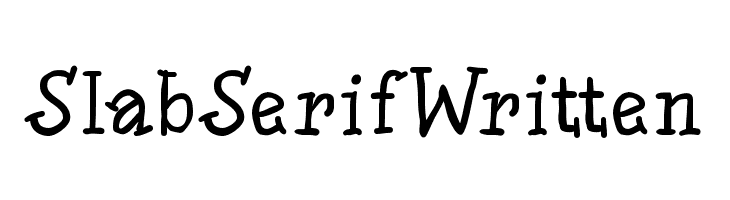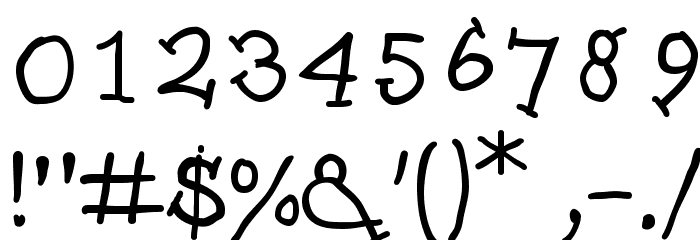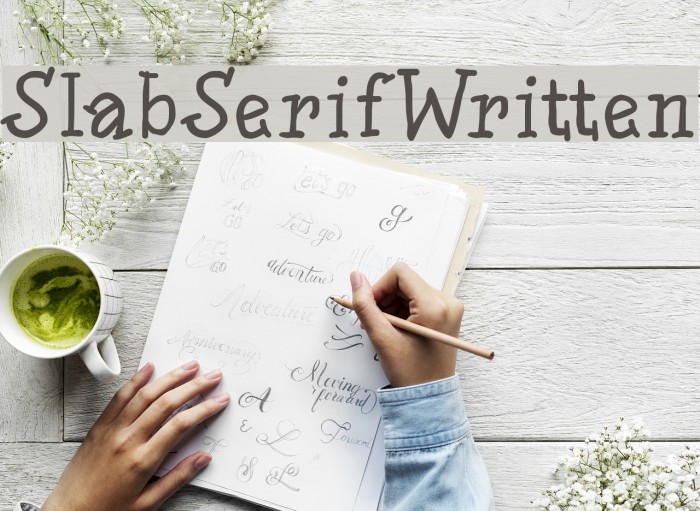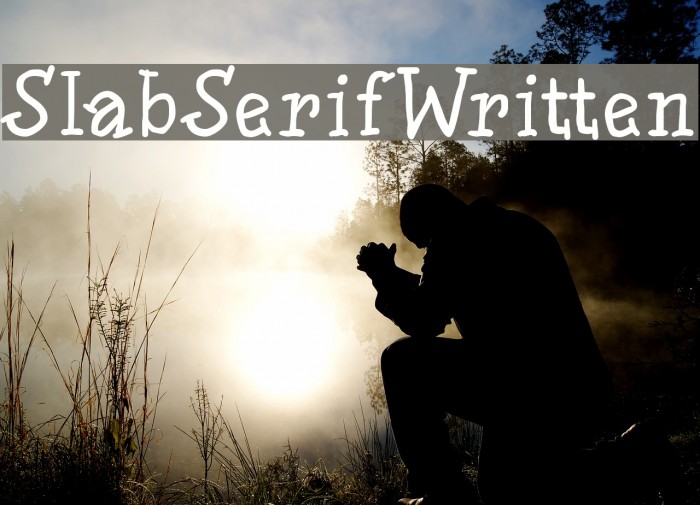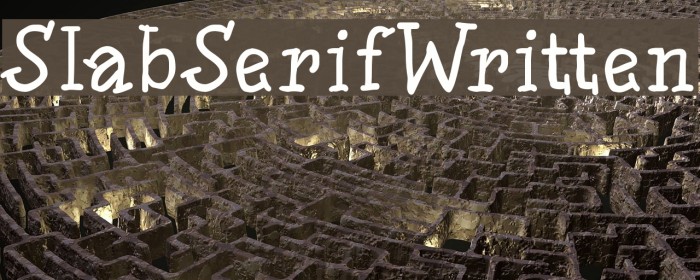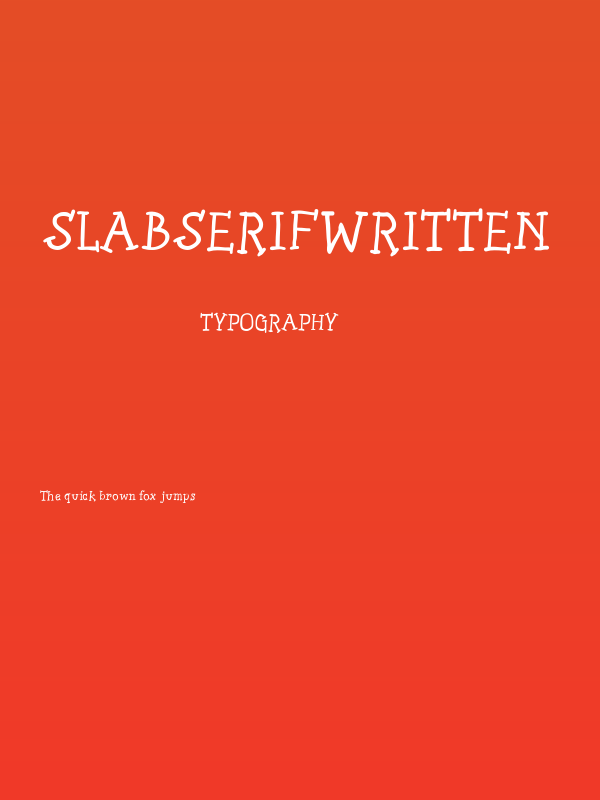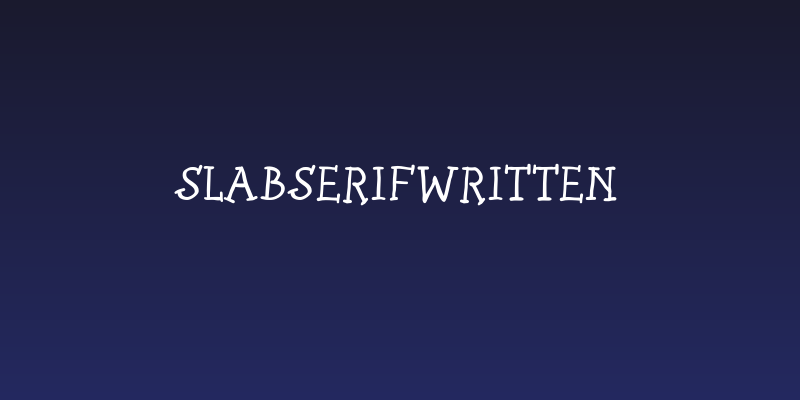
SlabSerifWritten Font
SlabSerifWritten Description
This font features a playful and handwritten style with slab serif characteristics. The letters exhibit a casual, slightly uneven stroke that gives it a whimsical and approachable feel. The uppercase and lowercase letters maintain a consistent style, with the serifs adding a touch of formality to the otherwise informal design. The numerals and special characters follow the same playful aesthetic, making the font versatile for various creative applications. The overall appearance is both charming and distinctive, suitable for projects that require a personal touch.
| Proposed Projects | Ideal for children's books, greeting cards, playful branding, and informal invitations. |